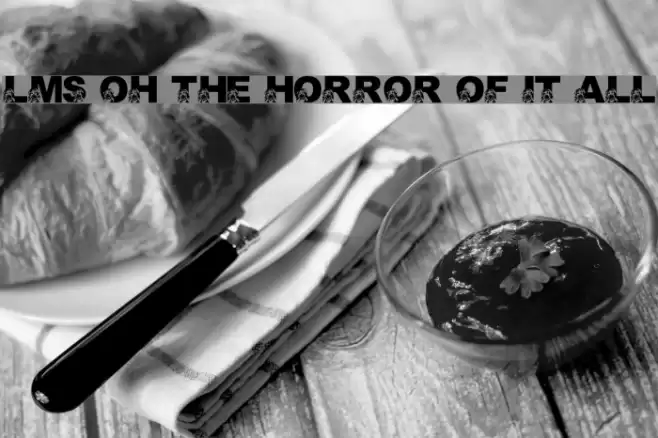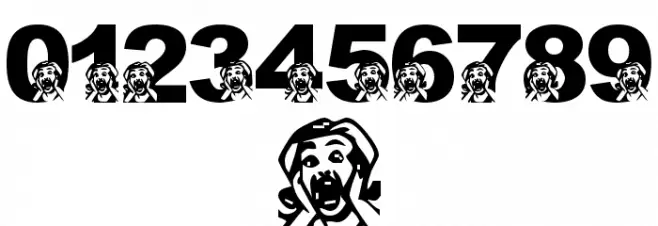
LMS Oh The Horror Of It All Font
This font is a bold and striking display typeface that incorporates a unique horror-themed design. Each character is accompanied by a graphic of a screaming face, creating a dramatic and eye-catching effect. The letters are uppercase and feature a solid, blocky structure that enhances their visibility and impact. The numbers follow the same style, maintaining consistency throughout the typeface. This font is perfect for projects that require a bold statement or a touch of horror and drama.
- Proposed Projects: Ideal for Halloween posters, horror movie titles, themed event invitations, and any project requiring a dramatic, eye-catching typeface.